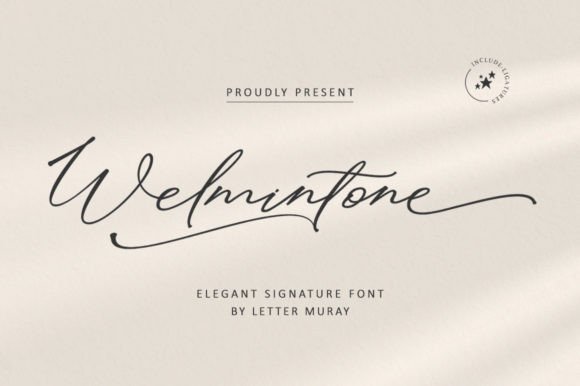
In the realm of digital creation, the Welmintone Font stands as a beacon of beauty and elegance, inviting you on a journey of artistic exploration. This captivating script, crafted with meticulous care by the talented Letter Muray, beckons you to unlock your creative potential and transform your designs into masterpieces.
Immerse yourself in the allure of Welmintone, a font that epitomizes grace and sophistication. Its fluid lines dance across the page, evoking a sense of timeless elegance that will leave your audience mesmerized. Whether you're a seasoned designer or just starting your creative journey, Welmintone will lend an air of enchantment to your projects, captivating all who behold it.
Unleash your imagination and let Welmintone guide you through a world of endless possibilities. With this versatile font at your fingertips, you can craft stunning logos that command attention, design eye-catching social media posts that engage your audience, and create personalized invitations that leave a lasting impression. The possibilities are boundless, waiting for you to explore and bring your unique vision to life.